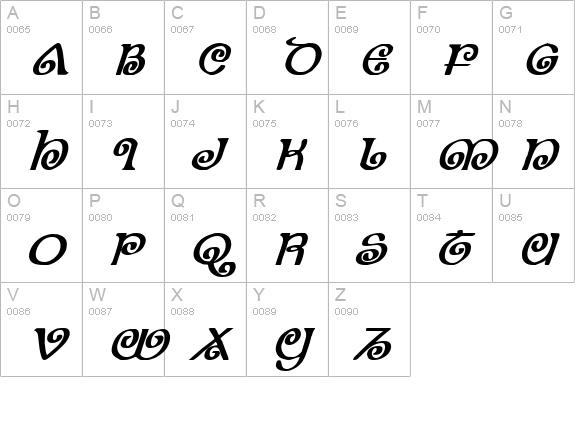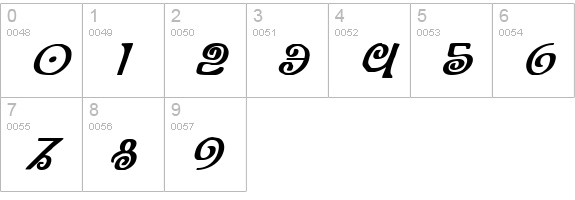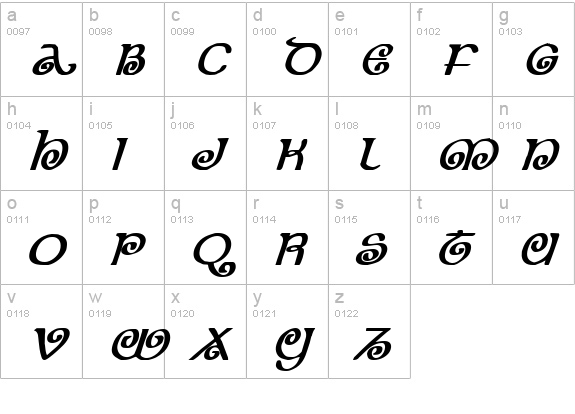
The Shire Bold Italic Font Details
The Shire Bold Italic is a strong, high-contrast, italic variant in the The typeface family \xE2\x80\x94 well suited to headlines, attention-grabbing titles, and strong calls-to-action.
The Shire Bold Italic font is a charming and elegant typeface that exudes a sense of whimsy and creativity. With its bold strokes and playful italicized design, this font is perfect for adding a touch of personality to your projects. Whether you're designing invitations, posters, or branding materials, The Shire Bold Italic font is sure to make a statement. Best of all, The Shire Bold Italic font is available for free download at FontsMarket.com. Simply visit the website to access this versatile and eye-catching font for your creative endeavors. Don't miss out on the opportunity to enhance your designs with the unique charm of The Shire Bold Italic font!